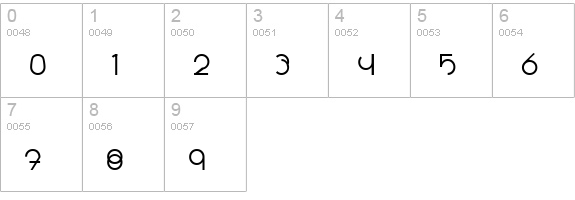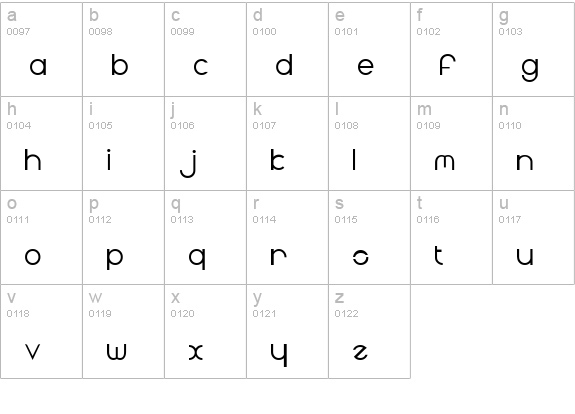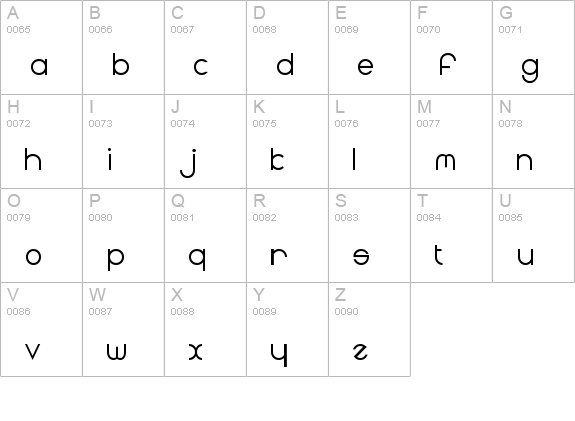
Radii Font Details
Radii is a versatile and modern font that effortlessly blends elegance with a touch of edginess. Its clean and sleek lines give it a contemporary feel, making it perfect for a wide range of design projects. Whether you're working on a logo, branding, or even a website, Radii will add a polished and professional look to your work. One of the best things about Radii is that it is free. Yes, you heard it right! This incredible font is freely available for download at FontsMarket.com. You don't need to worry about breaking the bank or compromising on quality when using Radii for your creative endeavors. Simply head over to FontsMarket.com, and with just a few clicks, you can have this fantastic font ready to enhance your designs. Radii's versatility extends beyond its aesthetic appeal. Its wide range of weights and styles allows you to experiment and play around with various combinations, ensuring that your designs are unique and captivating. Whether you prefer a bold and impactful look or a more subtle and refined style, Radii has got you covered. This font also boasts excellent legibility, making it ideal for both print and digital media. Its well-crafted letterforms ensure that your message is conveyed clearly and effectively, whether it's displayed on a billboard or a small screen. Radii's attention to detail and its ability to adapt to different contexts make it a reliable choice for designers who value both form and function. So why wait? Give your design projects a stylish upgrade with Radii. With its modern elegance, versatility, and the fact that it is freely available to download at FontsMarket.com, this font is a must-have for any creative professional or enthusiast. Don't miss out on the opportunity to elevate your designs with Radii's unique blend of sophistication and contemporary flair.